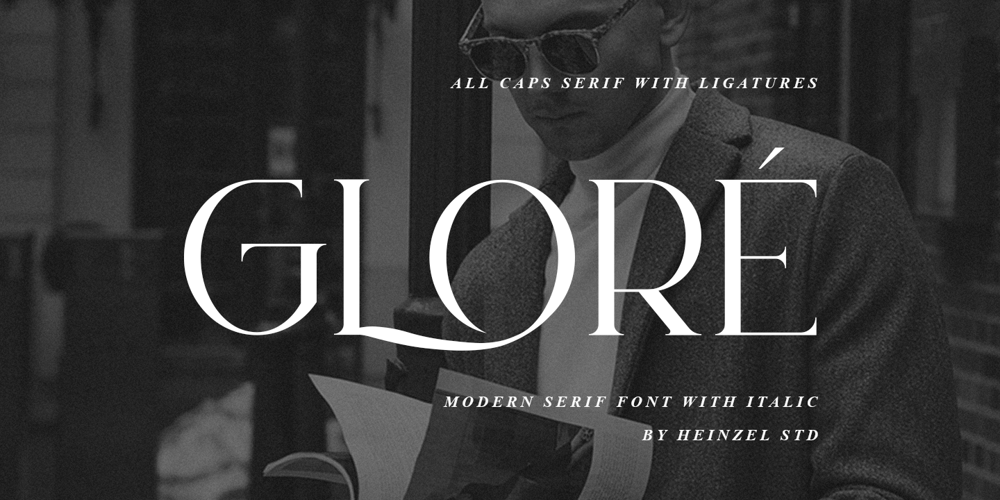
Glore Font Family was designed by Nofi Sofyan Hadi and published by Heinzel Std. Glore contains 2 styles and family package options. Gloré is an elegant and modern serif font. Fall for its ravishing style and use it to create gorgeous wedding invitations, beautiful stationary art, branding, logos, headlines, headings, magazines, eye-catching social media posts, and much more! This font is PUA encoded which means you can access all of the amazing glyphs and ligature with ease!Gloré Features : Gloré Regular and Italic version, serif font all caps, numerals, and more punctuations. Multilingual support for various languages Stunning Ligatures